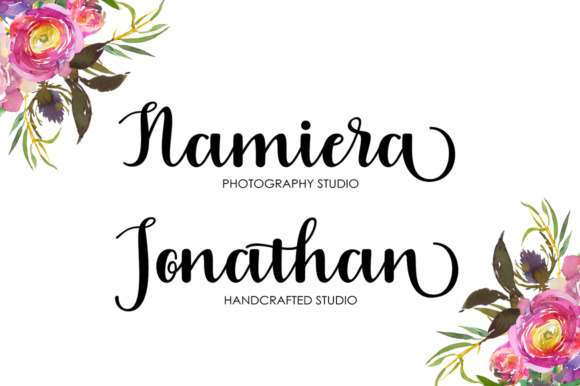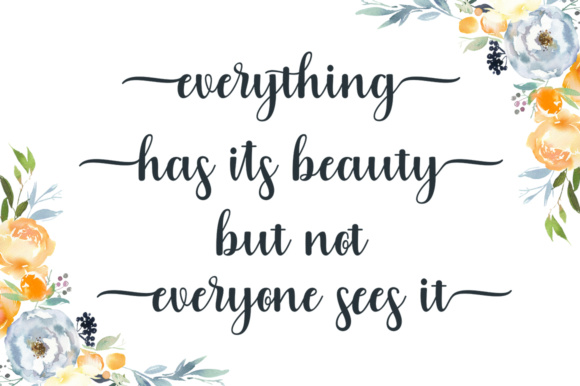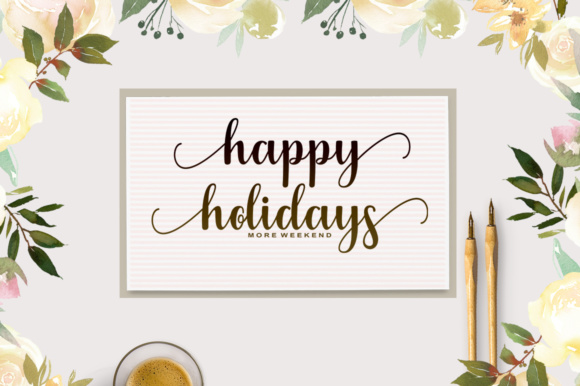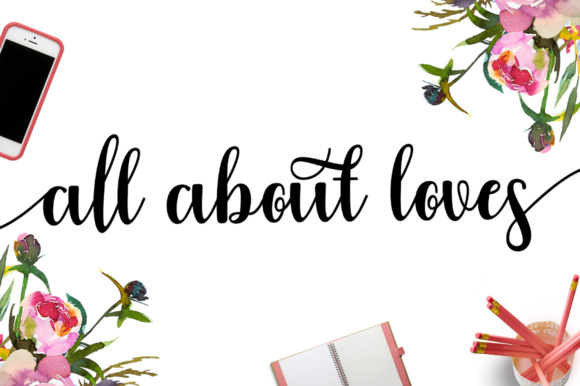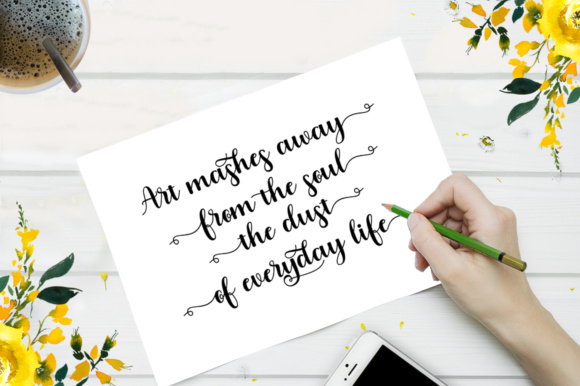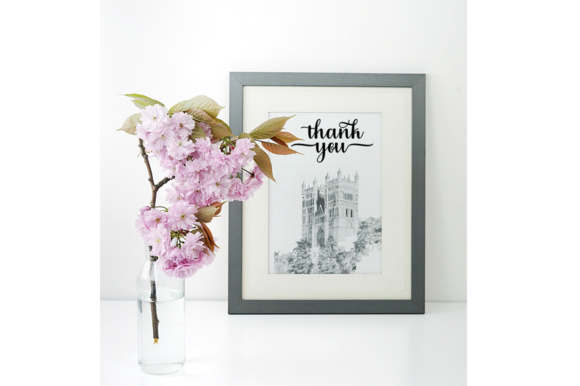
Girly Love Font
About Girly Love Font
The Girly Love Script is a modern, handwritten calligraphy typeface. It features a ‘dancing’ baseline, making the text flow up and down.
The font features lovely alternates, helping you to make the text stand out.